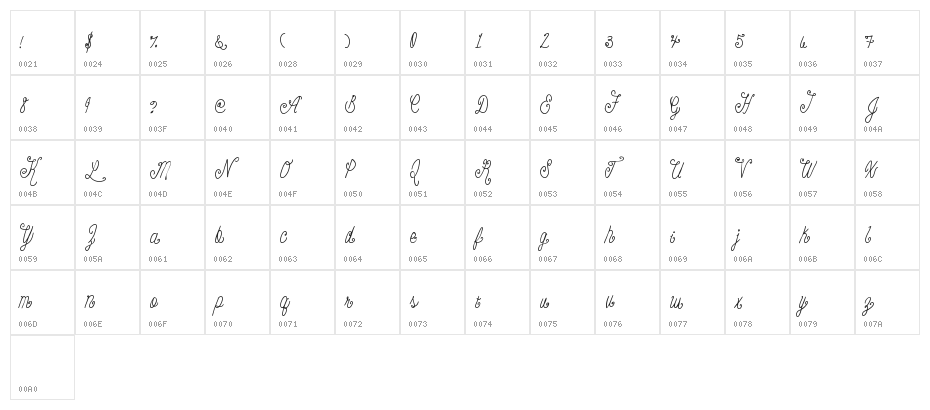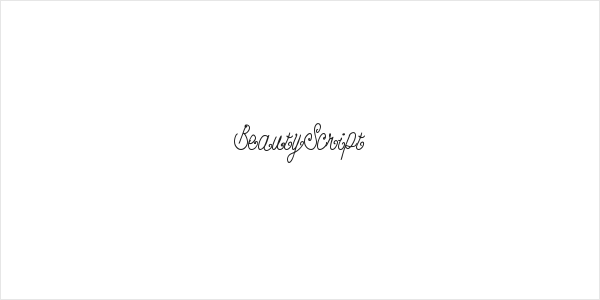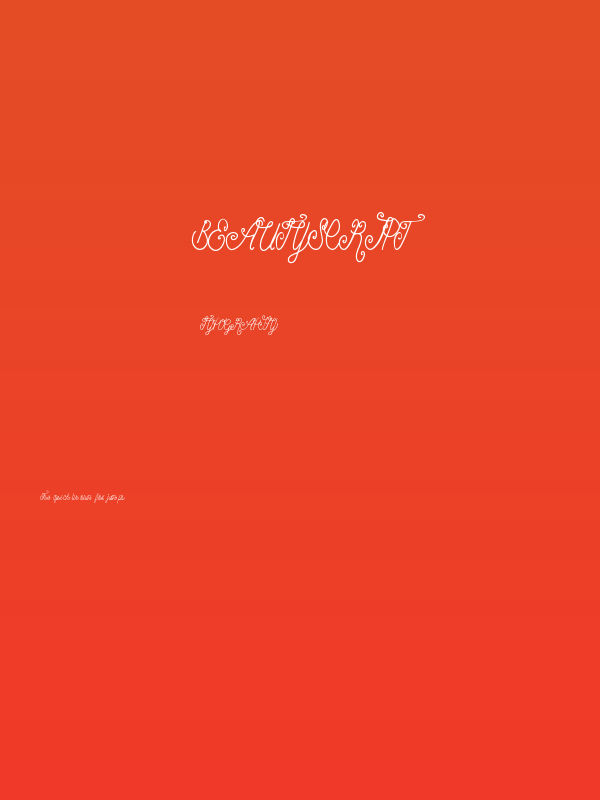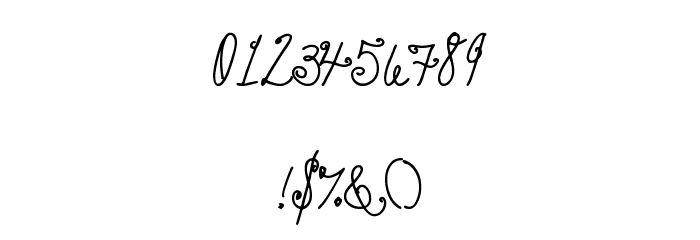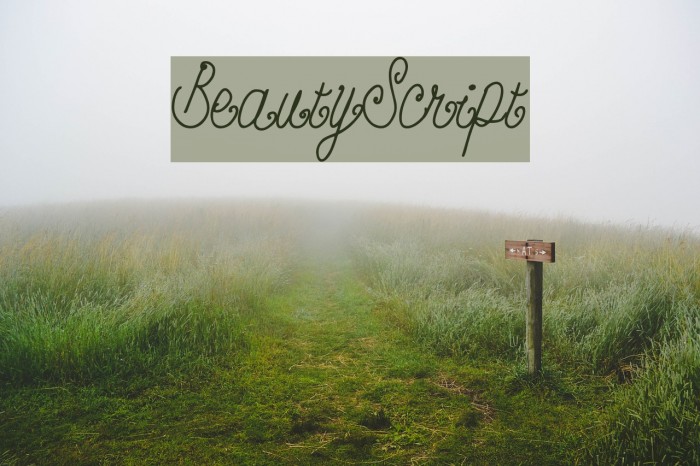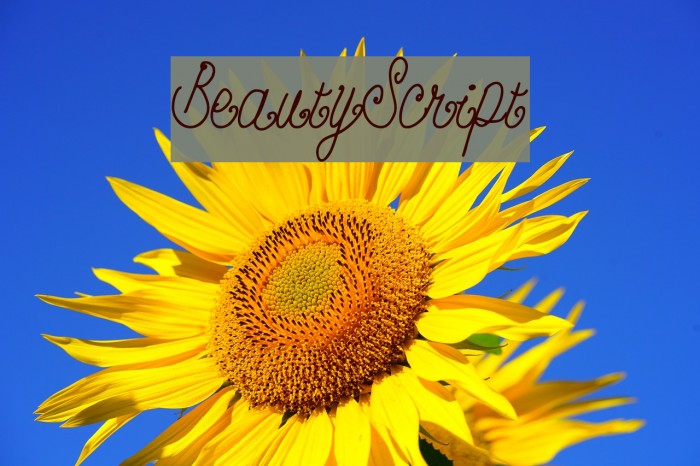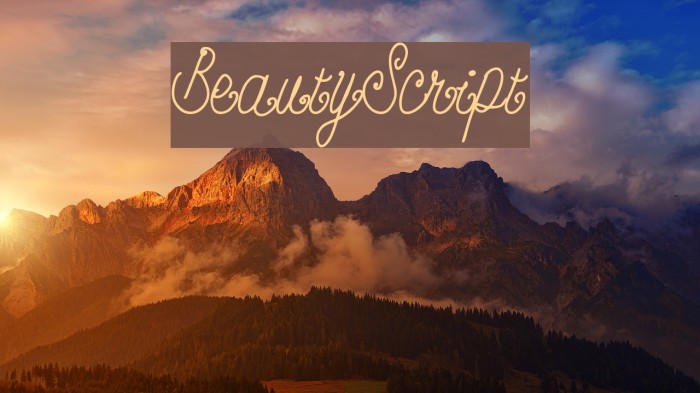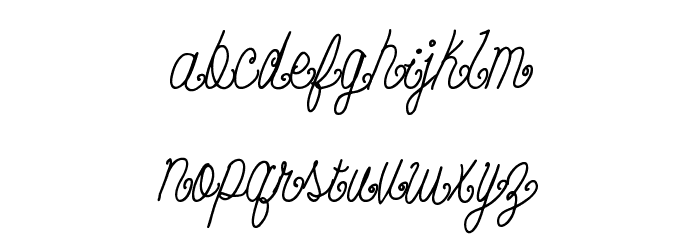
BeautyScript Font
BeautyScript Description
This elegant script font features a flowing, cursive style with intricate loops and swirls that give it a sophisticated and artistic appearance. The uppercase letters are particularly ornate, with exaggerated curves and flourishes that make each character stand out. The lowercase letters maintain a consistent style, offering a smooth and connected look that enhances readability while preserving the decorative nature of the font. The numerals and special characters are designed to match the overall aesthetic, ensuring a cohesive appearance across all text. This font is ideal for projects that require a touch of elegance and creativity.
| Use Case | Logos, Invitations, Decorative text |
| Proposed Projects | Wedding invitations, greeting cards, branding materials, and decorative signage. |